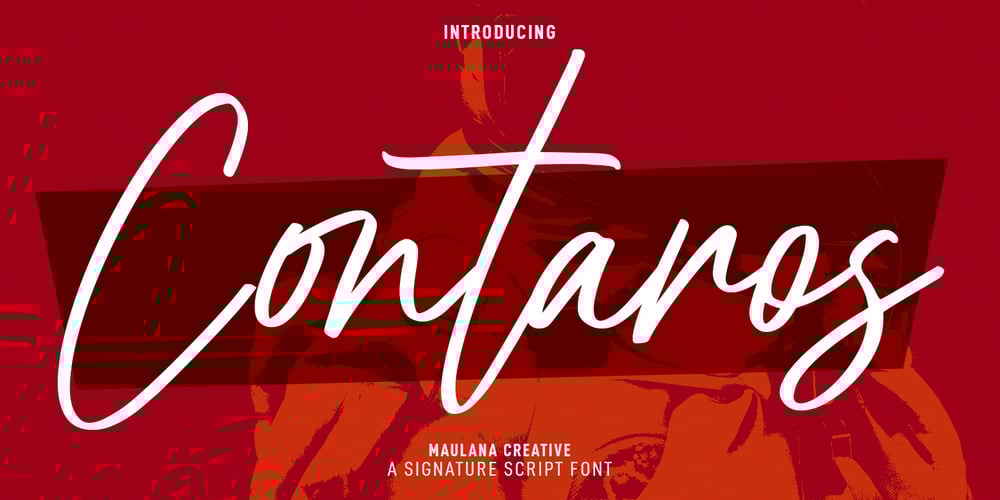
Contaros Font Family was designed by Gilang Maulana and published by Maulana Creative. Contaros contains 1 styles and family package options. Contaros is a casual script font. With regular felt-tip stroke, fun character with a bit of ligatures and alternates. To give you an extra creative work. Contaros font support multilingual more than 100+ language. This font is good for logo design, Social media, Movie Titles, Books Titles, a short text even a long text letter and good for your secondary text font with sans or serif. Make a stunning work with Contaros font. Cheers, MaulanaCreative